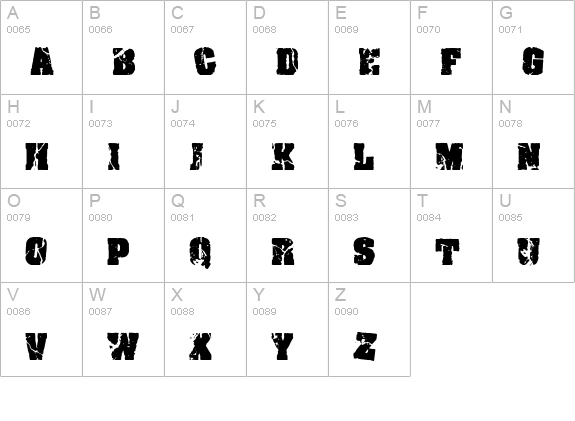
CF Crack and Bold Regular Font Details
CF Crack and Bold Regular is a strong, high-contrast variant in the CF typeface family \xE2\x80\x94 well suited to headlines, attention-grabbing titles, and strong calls-to-action.
CF Crack and Bold Regular font is a powerful and dynamic typeface that embodies a sense of strength and confidence. With its bold and crackling appearance, this font is perfect for designs that demand attention and make a bold statement. The sharp edges and rugged texture of CF Crack and Bold Regular font give it a unique and edgy look, making it ideal for a variety of creative projects. This font is not only visually striking, but it also provides excellent legibility and readability. The clear and well-defined letterforms ensure that your message will be conveyed with clarity and impact. Whether you are designing a poster, logo, or website, CF Crack and Bold Regular font will add a touch of modernity and sophistication to your project. What sets CF Crack and Bold Regular font apart is its availability for free download at FontsMarket.com. This means that you can easily access this amazing font without any cost. Whether you are a professional designer or just starting out, having access to high-quality fonts like CF Crack and Bold Regular font can greatly enhance your creative endeavors. So why wait? Don't miss out on the opportunity to add CF Crack and Bold Regular font to your font library. Download it for free at FontsMarket.com and unleash your creativity with this stunning and versatile typeface.